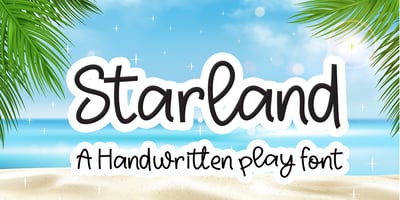
Starland
Starland font
Starland Font Family was designed by Nasrullah and published by Sulthan Studio. Starland contains 1 styles and family package options. Starland is a cute handwritten font.Perfect for stellar quotes, handwritten notes, sweet greeting cards, and of course stand-out branding.Font includes a full set of gorgeous uppercase and lowercase letters, numbers, a large selection of punctuation marks and multilingual support.